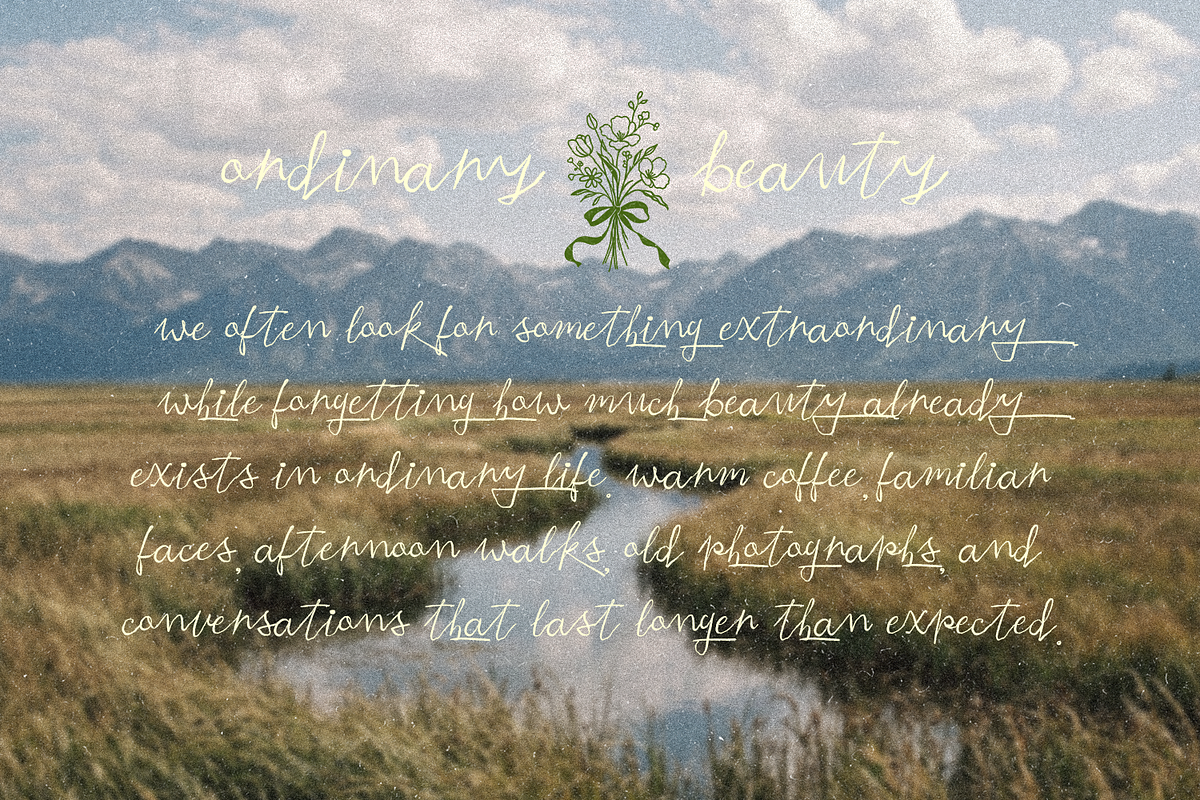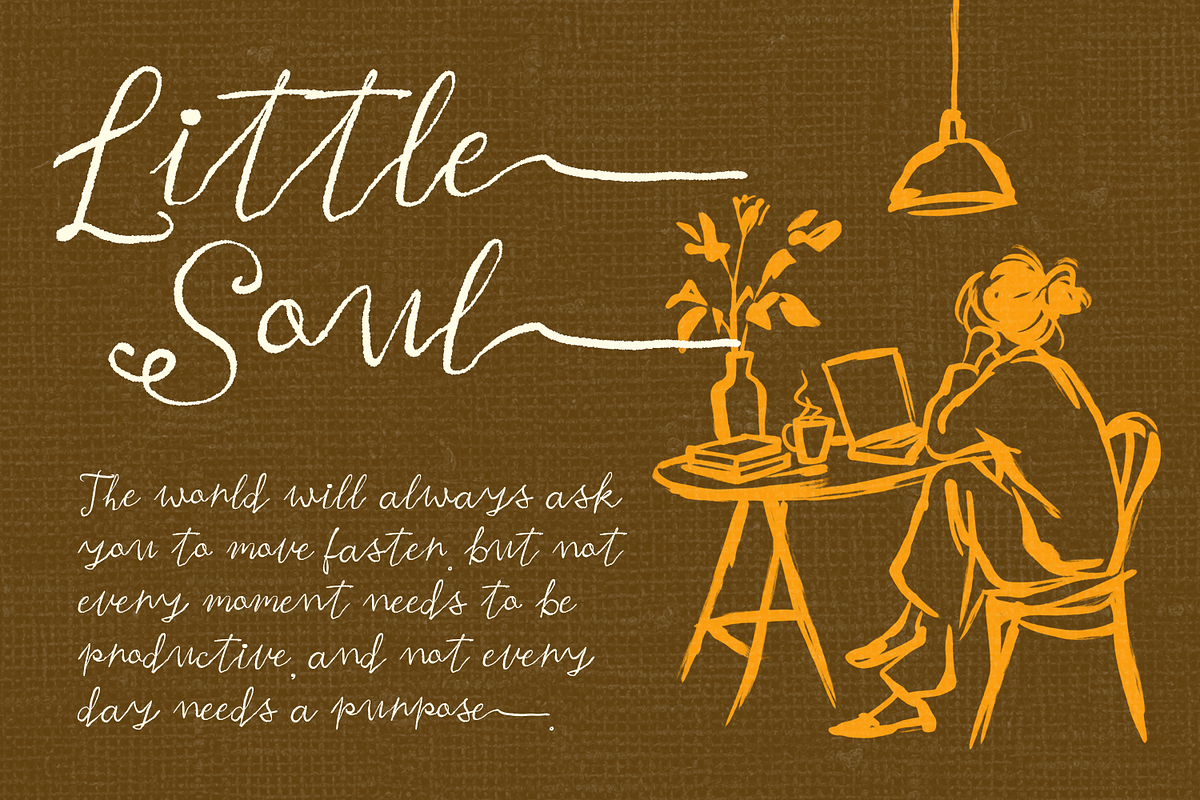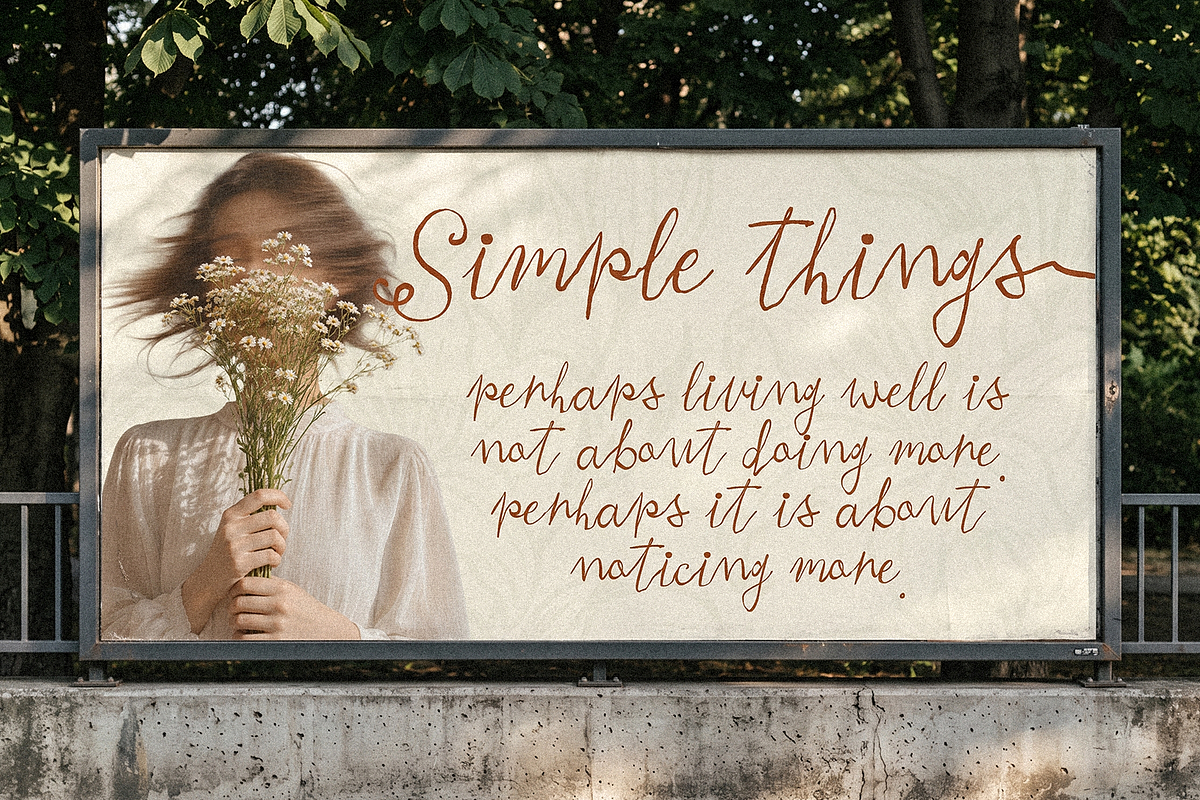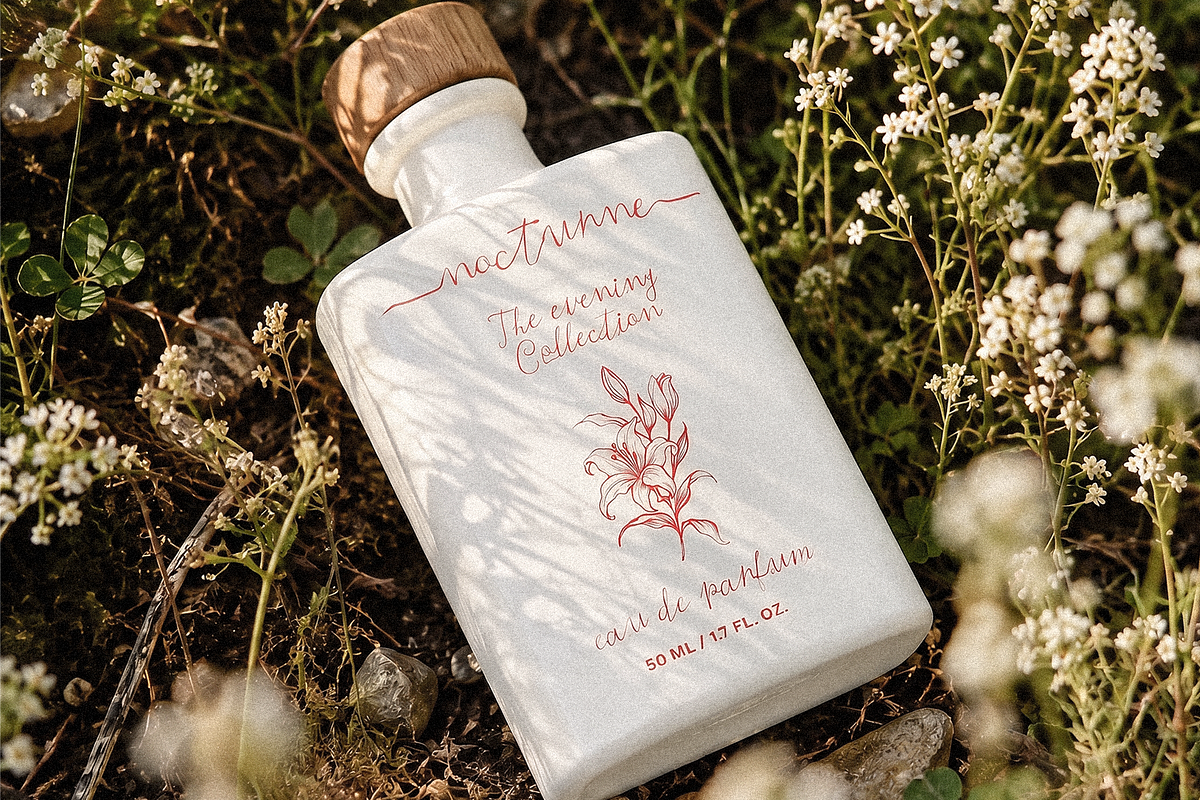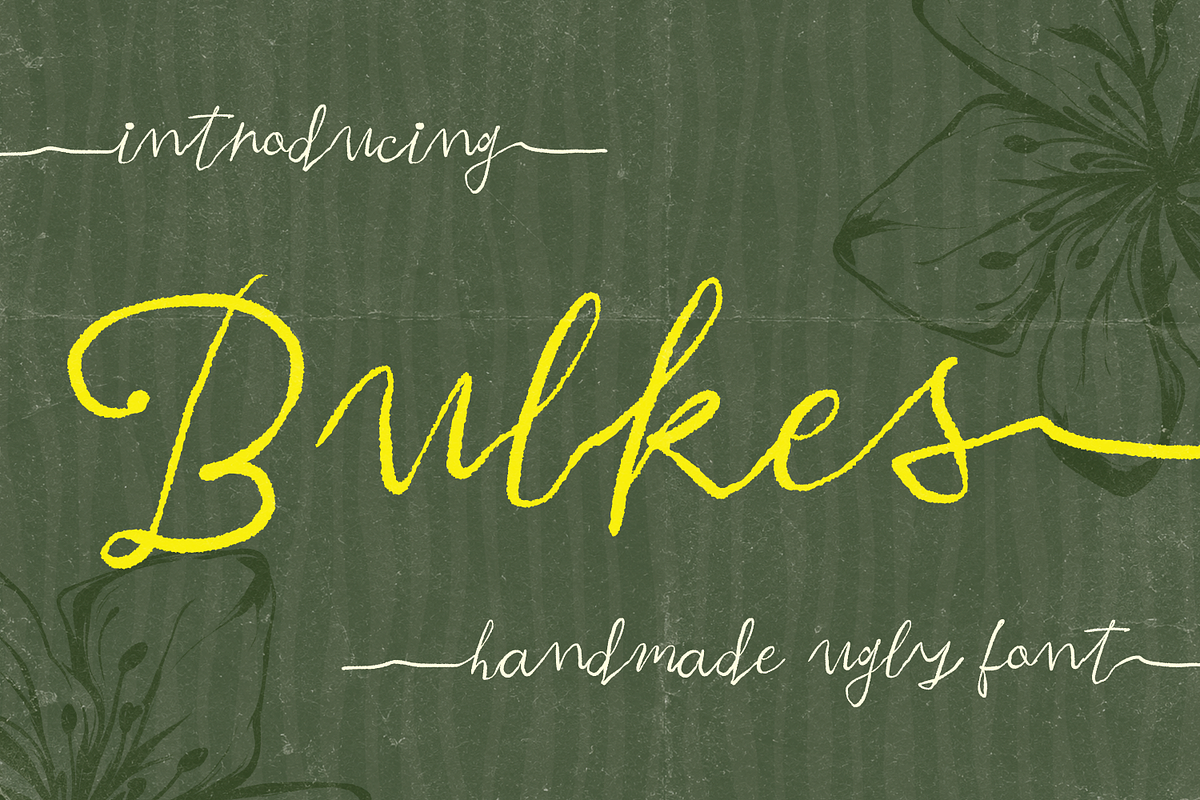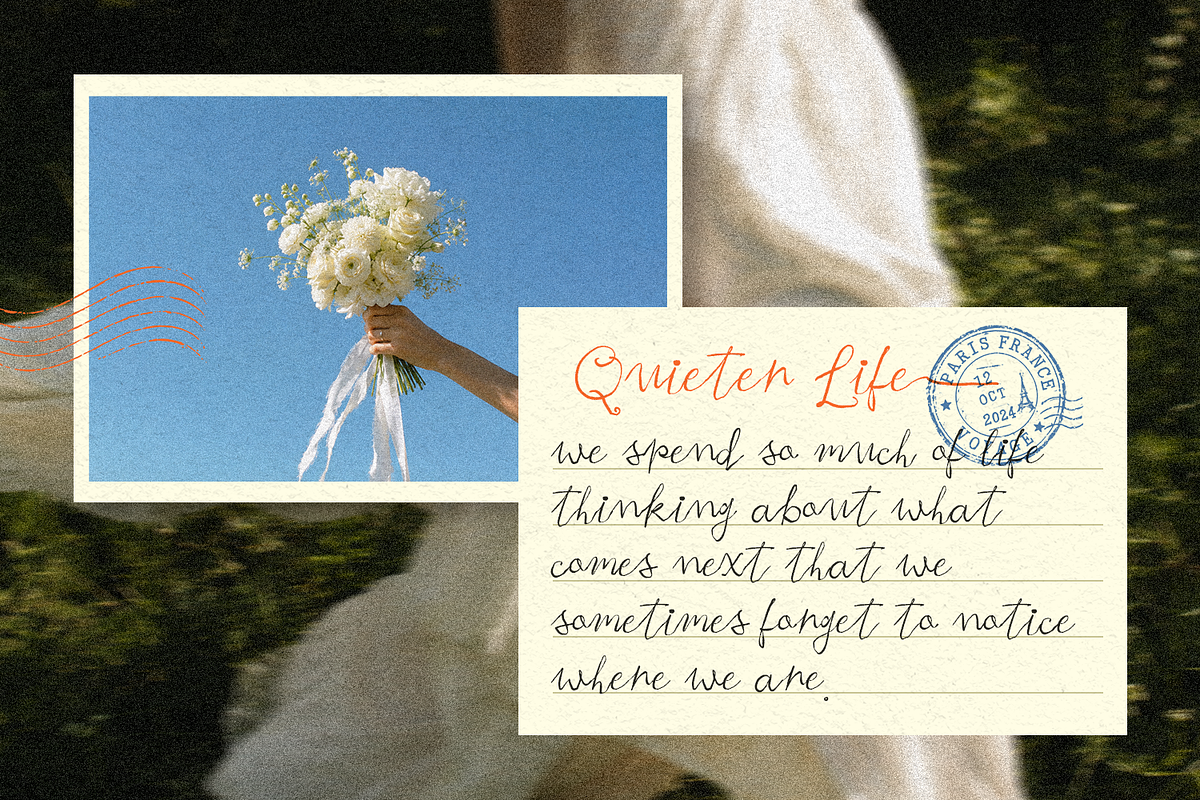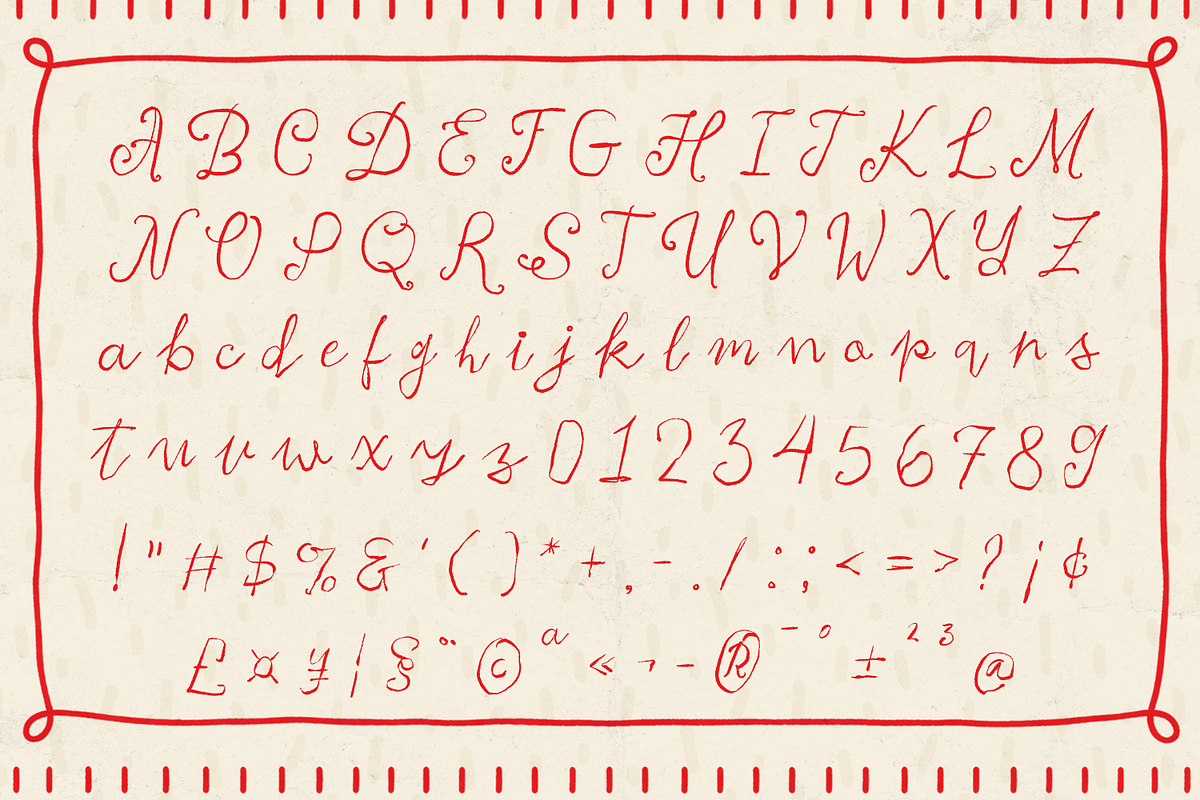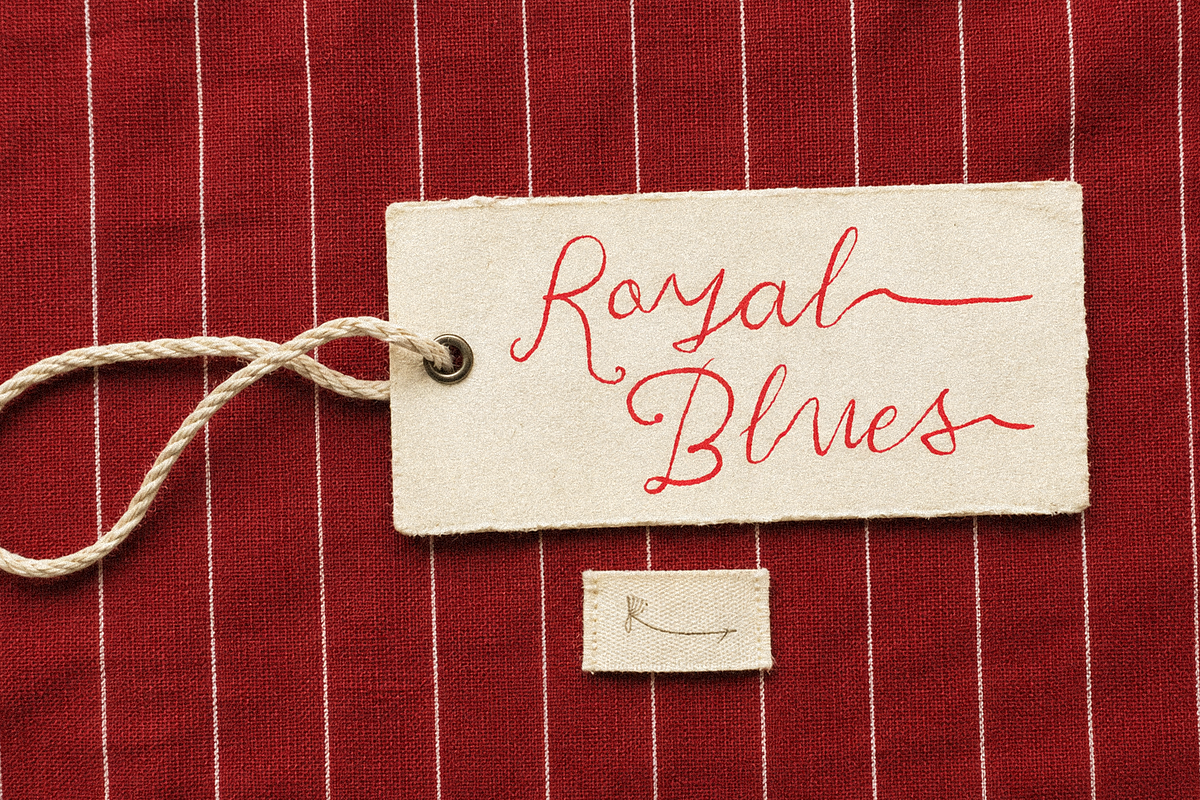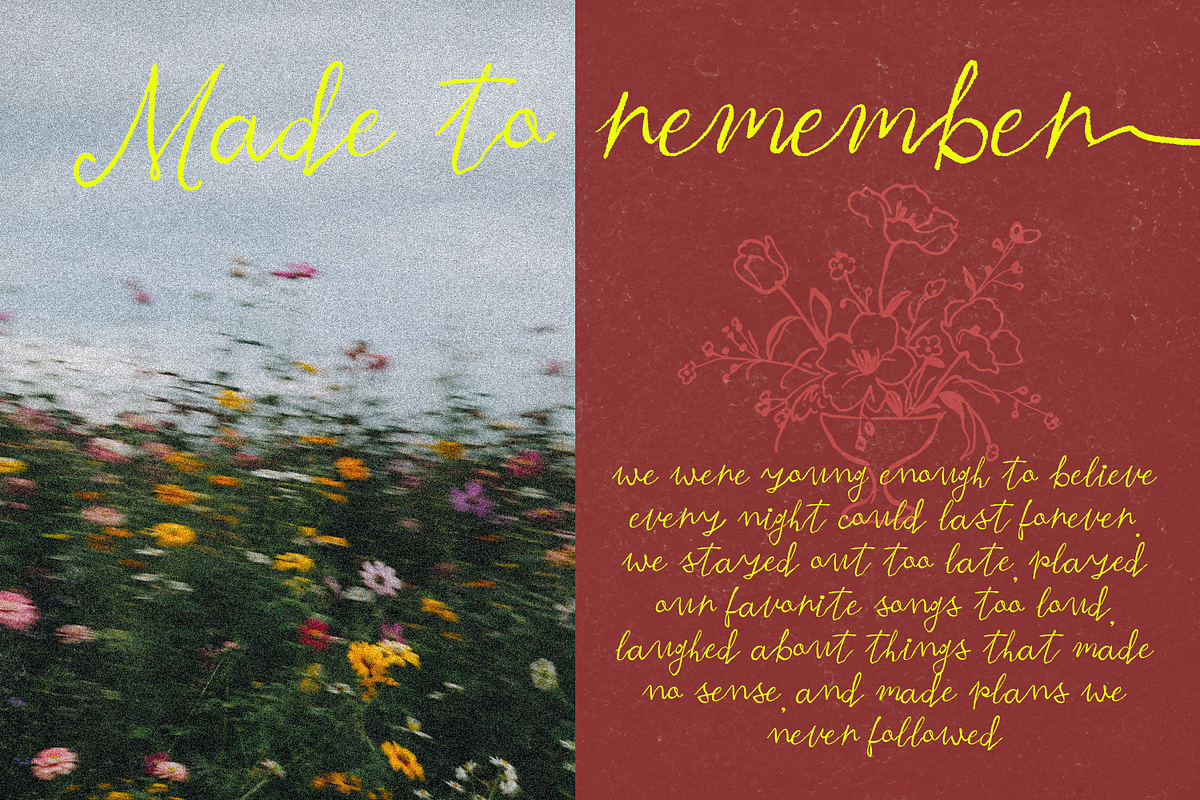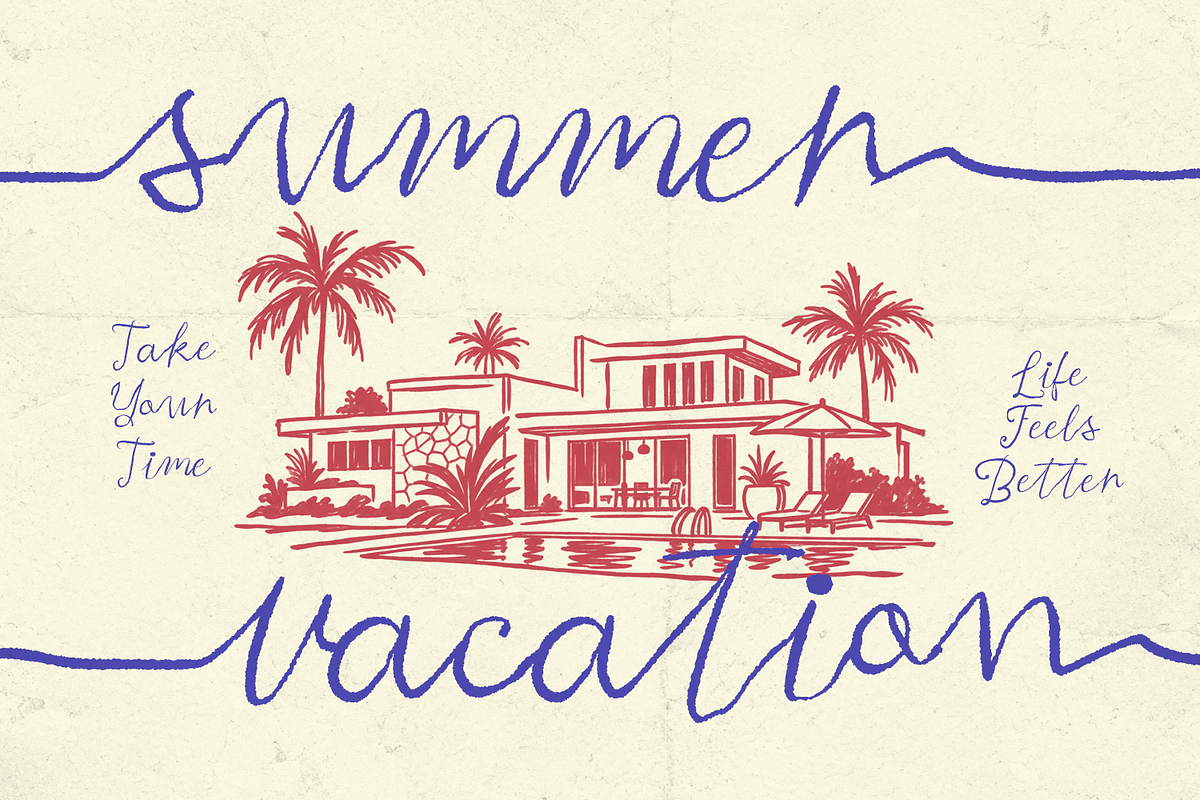
Bulkes Authentic Ugly Handwritten
Bulkes is an authentic, raw handmade script font designed to bring quirky character, casual freedom, and expressive personality to your design projects. Defined as an intentionally "ugly" script, it features loose handwriting loops, organic line textures, and extended horizontal swashes that capture a genuine, unfiltered human touch.
Crafted with high attention to artistic individuality, Bulkes is ideal for layouts that require an offbeat, natural, and rustic hand-lettered aesthetic.
- Complete Character Set: Includes full Uppercase and Lowercase script letterforms.
- Numbers & Punctuation: Complete set of numerals, standard symbols, and handwriting punctuation marks.
- Expressive Swashes: Extended entry and exit strokes for creating natural signatures and casual scripts.
- Multilingual Support: Accented characters supporting various European and Latin-based languages.
Ideal Applications:
- Organic & Botanical Branding: Perfect for eco-friendly product labels, herbal teas, floral shops, and natural skincare lines.
- Editorial & Quotes: Authentic lettering for aesthetic journal overlays, blog headers, handwritten notes, and poetry books.
- Craft & Goods Packaging: Rustic branding for artisanal soaps, hand-poured candles, coffee bags, and handmade crafts.
- Social Media Content: Casual text for Pinterest graphics, Instagram stories, quote art, and personal mood boards.
- Casual Apparel & Merch: Distinctive handwritten prints for relaxed t-shirts, tote bags, stickers, and custom stationery.